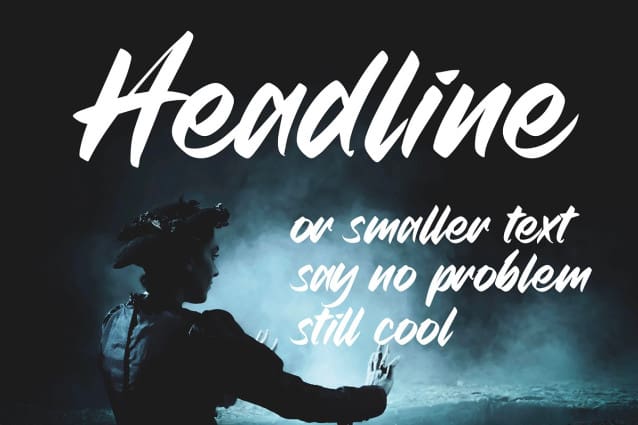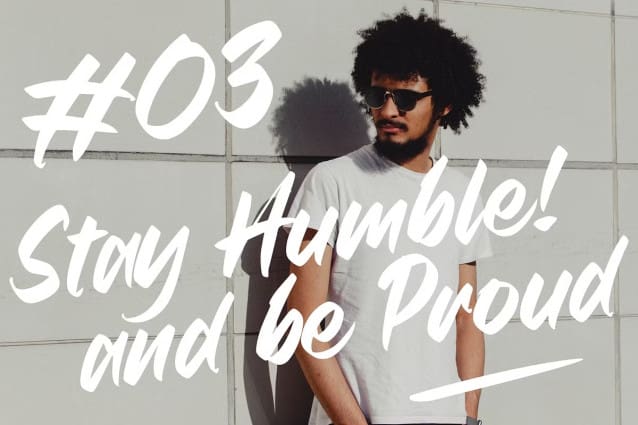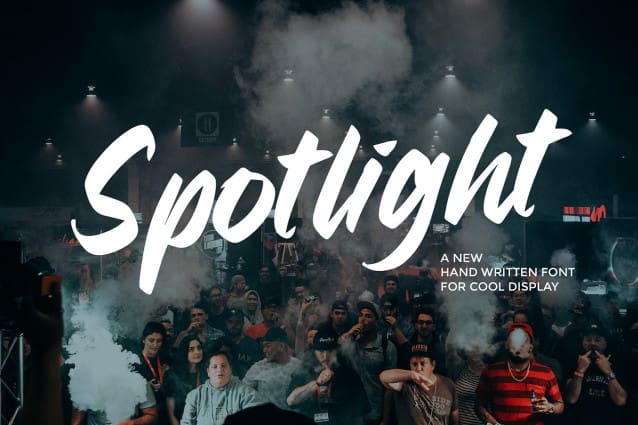
Spotlight Font
Spotlight Font, a unique display font from Strokes.ink. This handy sans serif includes a full character, numbers, punctuation & also alternate version. Perfect for big displays, titles, posters, marketing & advertising.